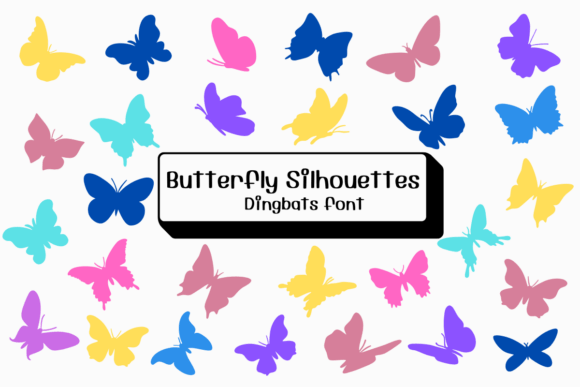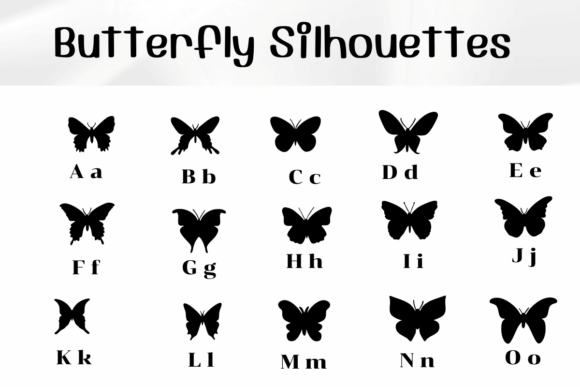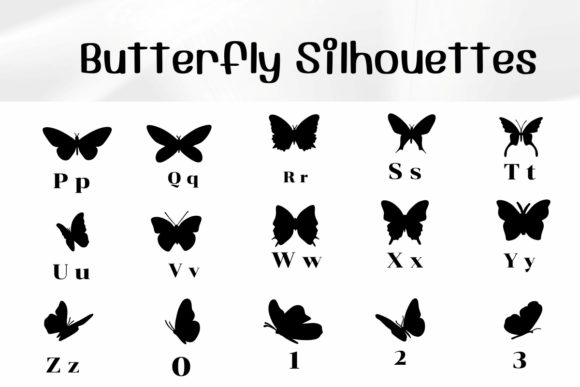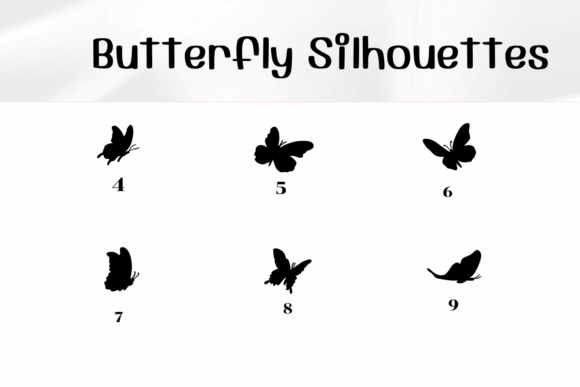
Butterfly Silhouettes Font
About the Butterfly Silhouettes Font
Elevate your designs with Butterfly Silhouettes Font, a font that combines sophistication with readability. Butterfly Silhouettes is a dingbats font with a gorgeous theme. This font can enhance your creative projects such as wedding invitations, DIY, crafts, decorations, logos, and many other creative ideas.
Butterfly Silhouettes excels in applications requiring delicate visual accents, such as wedding stationery, branding for artisanal products, or decorative packaging. Its intricate detail shines in logos and smaller design elements where its whimsical nature can add personality without overwhelming the design. However, its illegibility makes it unsuitable for body text or UI elements.
The font’s personality is undeniably elegant and playful, lending itself to brands with a feminine or romantic touch. Pairing it with a clean sans-serif like Helvetica Neue for body text provides a balanced contrast. Alternatively, a delicate serif such as Garamond could enhance its refined qualities for more traditional projects. Avoid pairing with bold or geometric fonts, which might clash with its delicate nature.
Consider using Butterfly Silhouettes sparingly as an embellishment, rather than a dominant typographic feature. Its strength lies in its ability to add a unique visual flair to an existing design rather than carrying the entire visual weight.